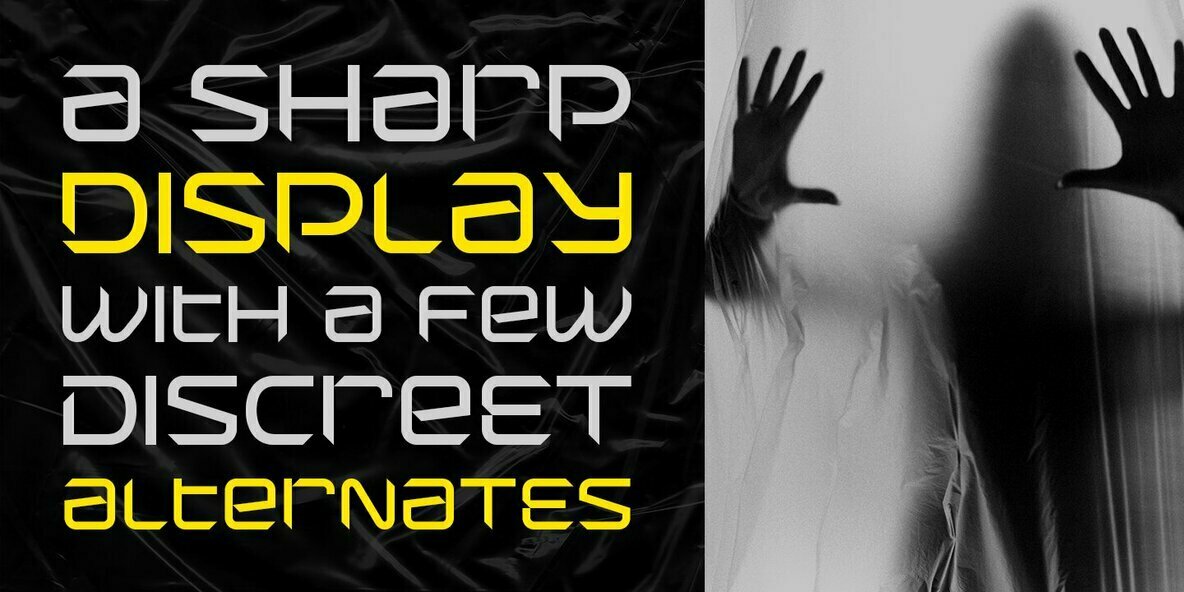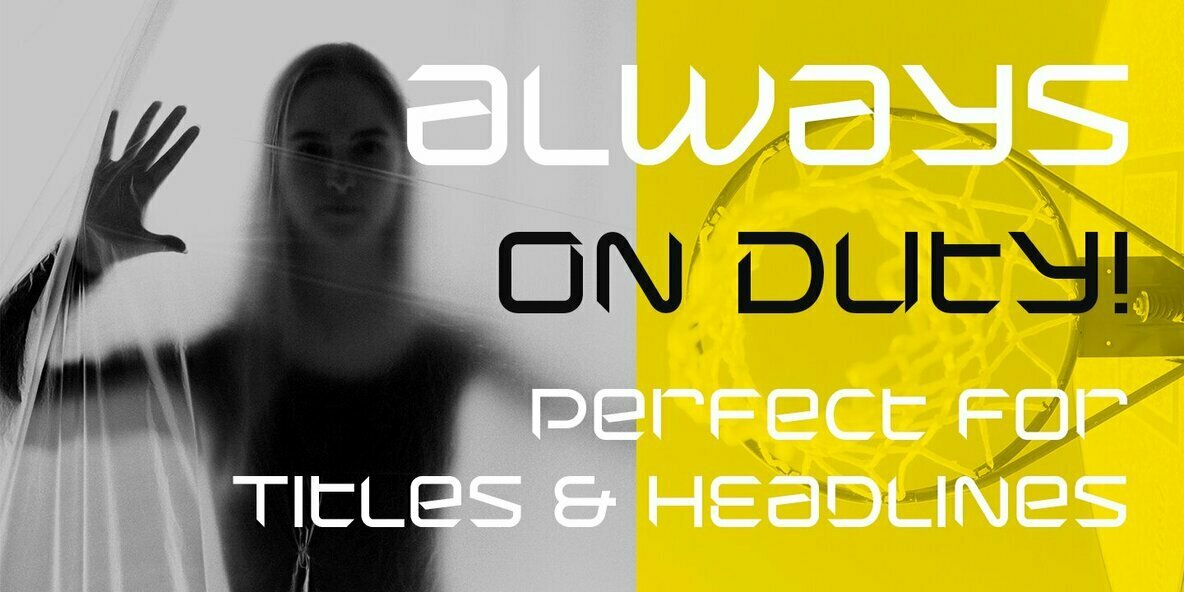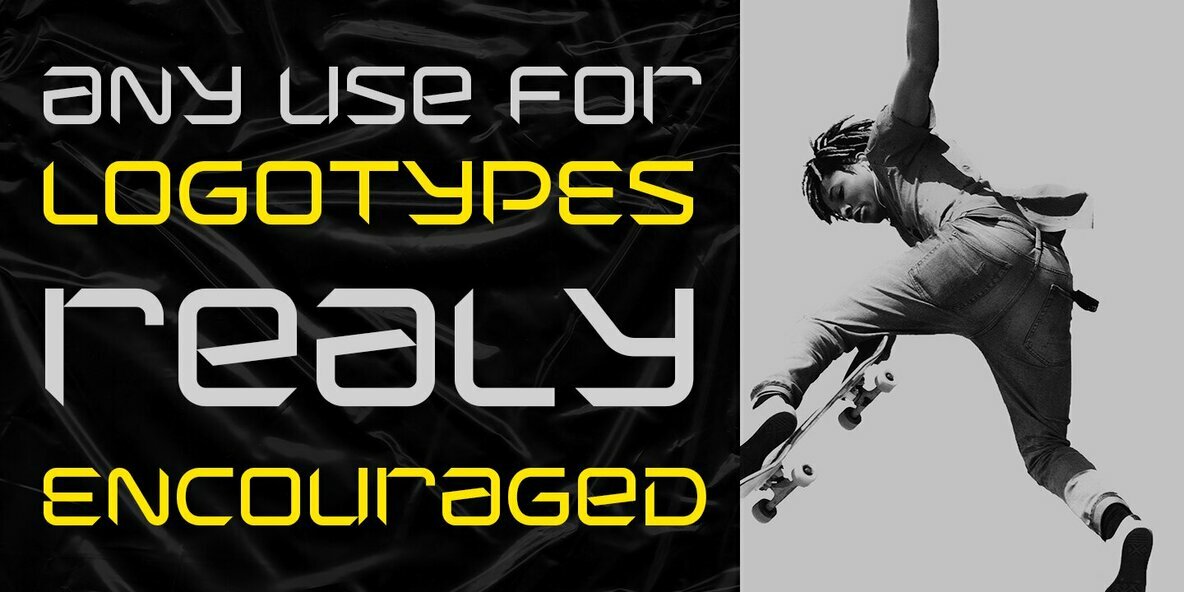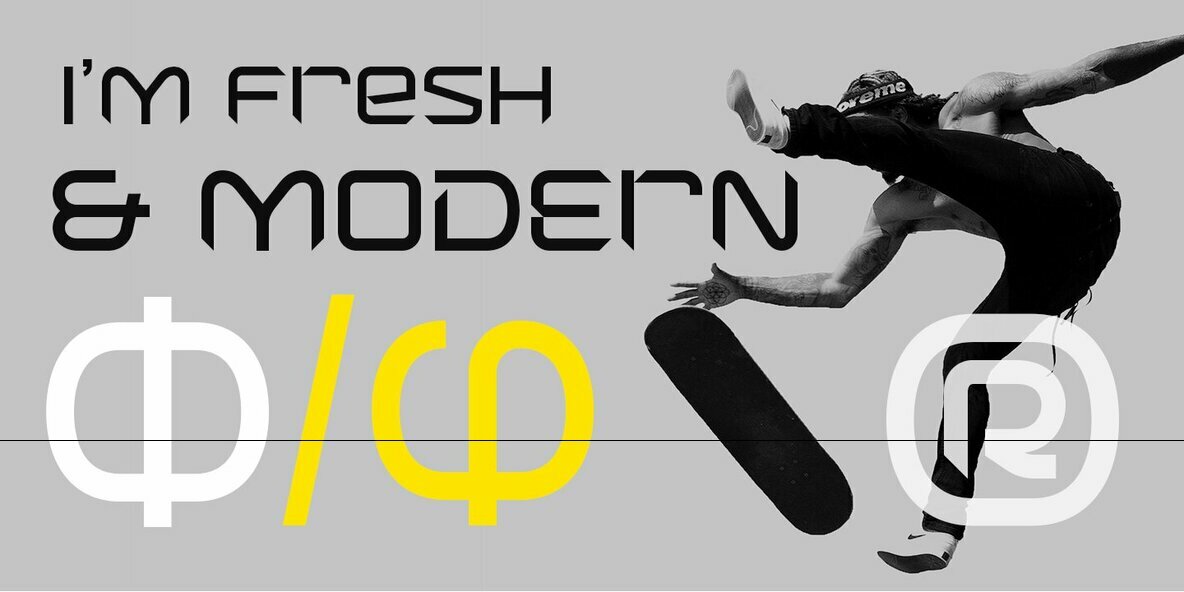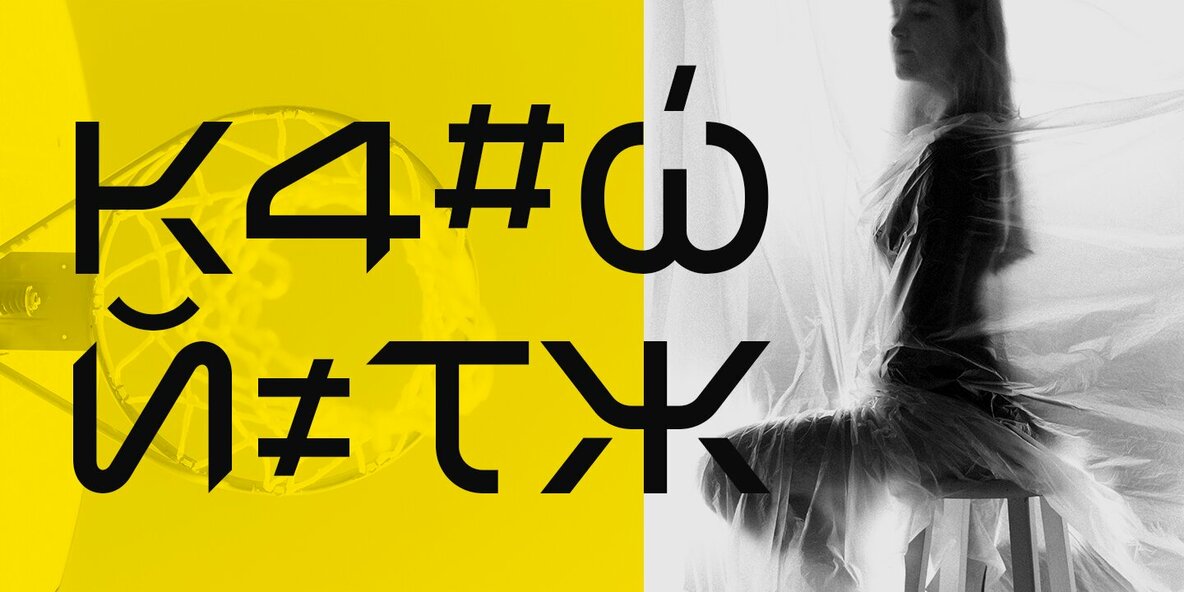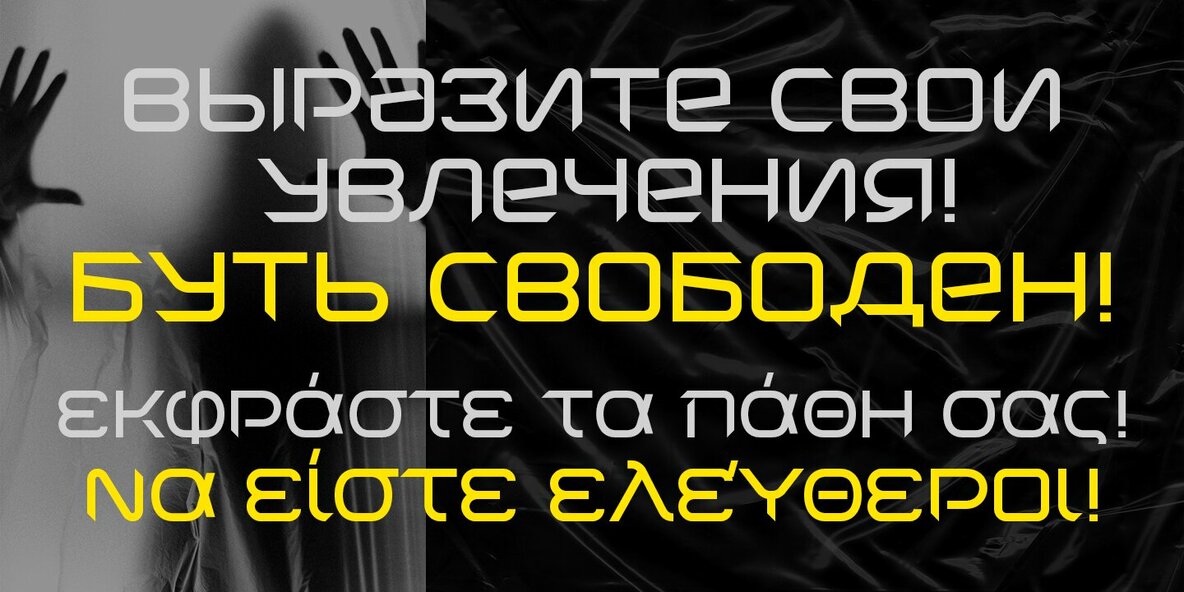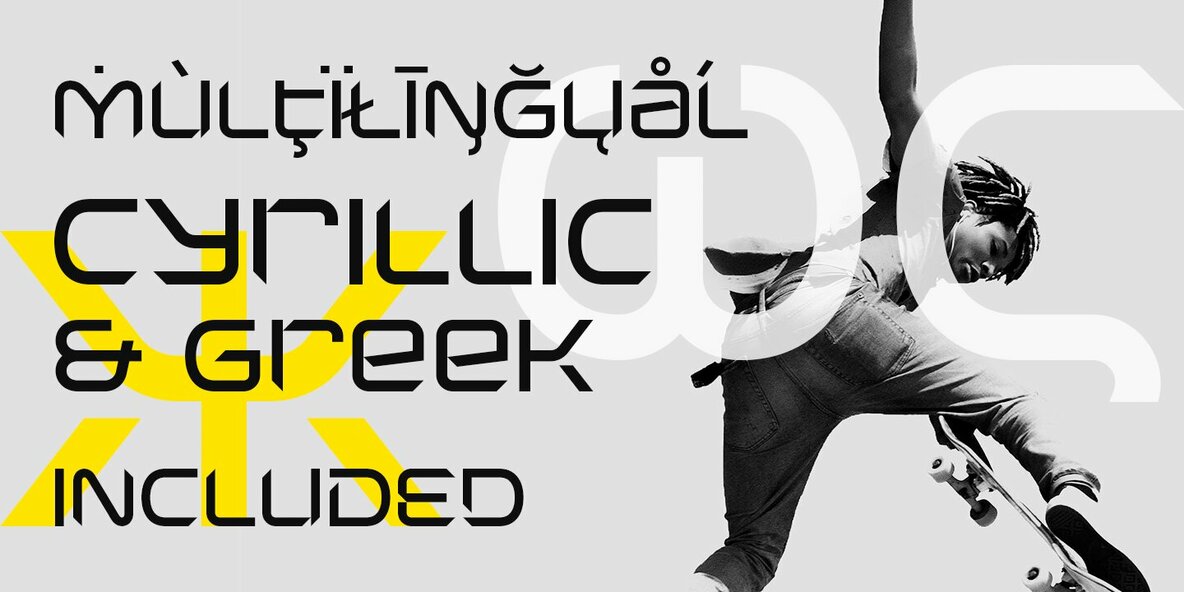
Squadzone Font
Squadzone is a young & sportive unicase style font, having both uppercase and a few small-case alternating letters that gives it a unique look. Its geometric anatomy of the letters may have two different types of endings or detail: straight and sharp cut out angles at 45 degrees. This offers a few alternatives in headlines or even logotype purposes that are really encouraged to use for.